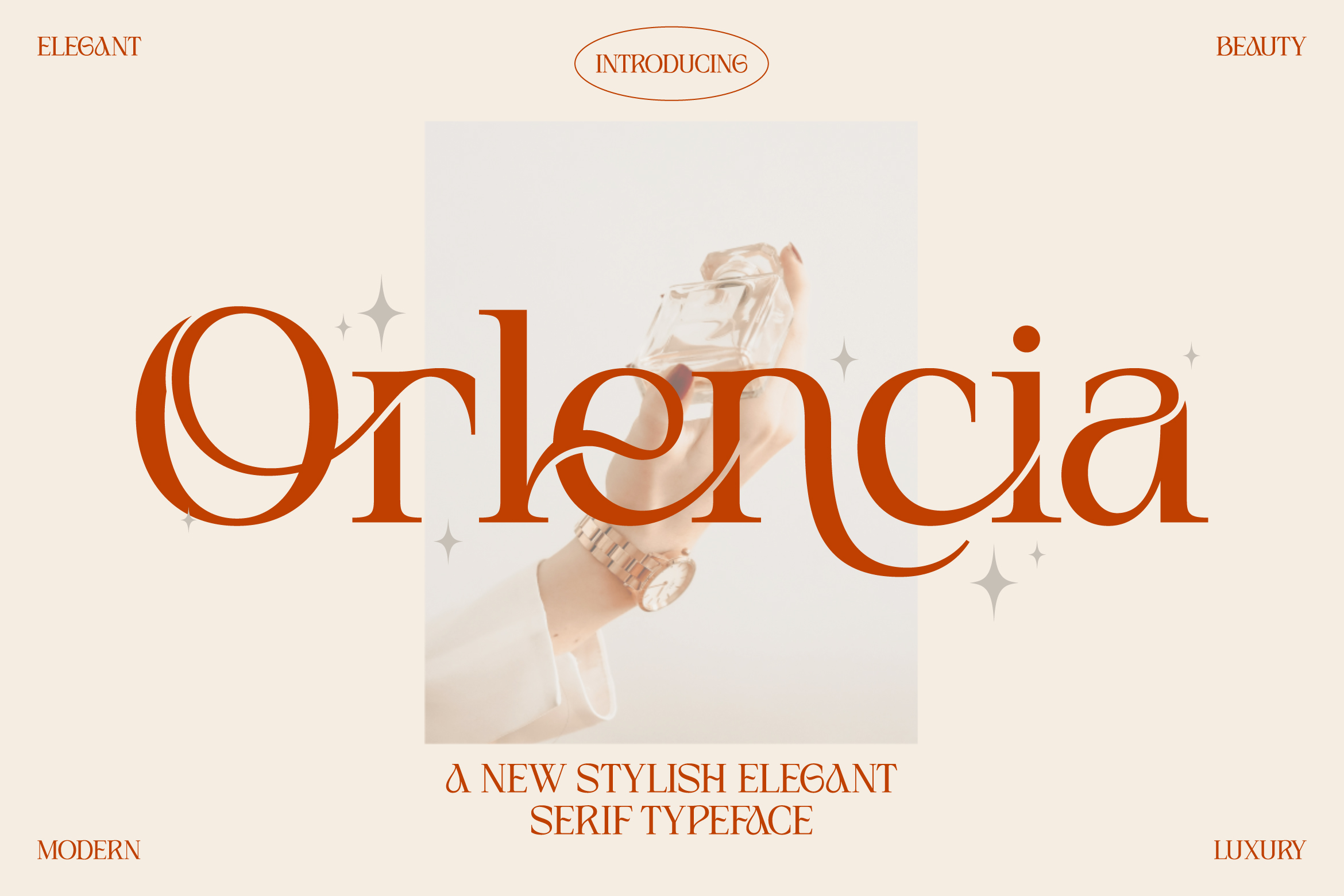
Orlencia – Elegant Serif Font
Orlencia – Elegant Serif Font is a versatile font designed to adapt beautifully across different design styles, offering dependable readability and balance. Orlencia is a modern elegant serif typeface designed to bring a sense of luxury, sophistication, and timeless beauty to your designs. With its graceful curves, refined contrast, and stylish ligatures, Orlencia is perfect for branding projects that require a premium and feminine touch.
This typeface blends classic serif elegance with modern aesthetics, making it ideal for fashion branding, beauty packaging, editorial layouts, wedding designs, and luxury logos.
Orlencia also features beautiful alternates and ligatures that enhance typography and create stunning wordmarks effortlessly.